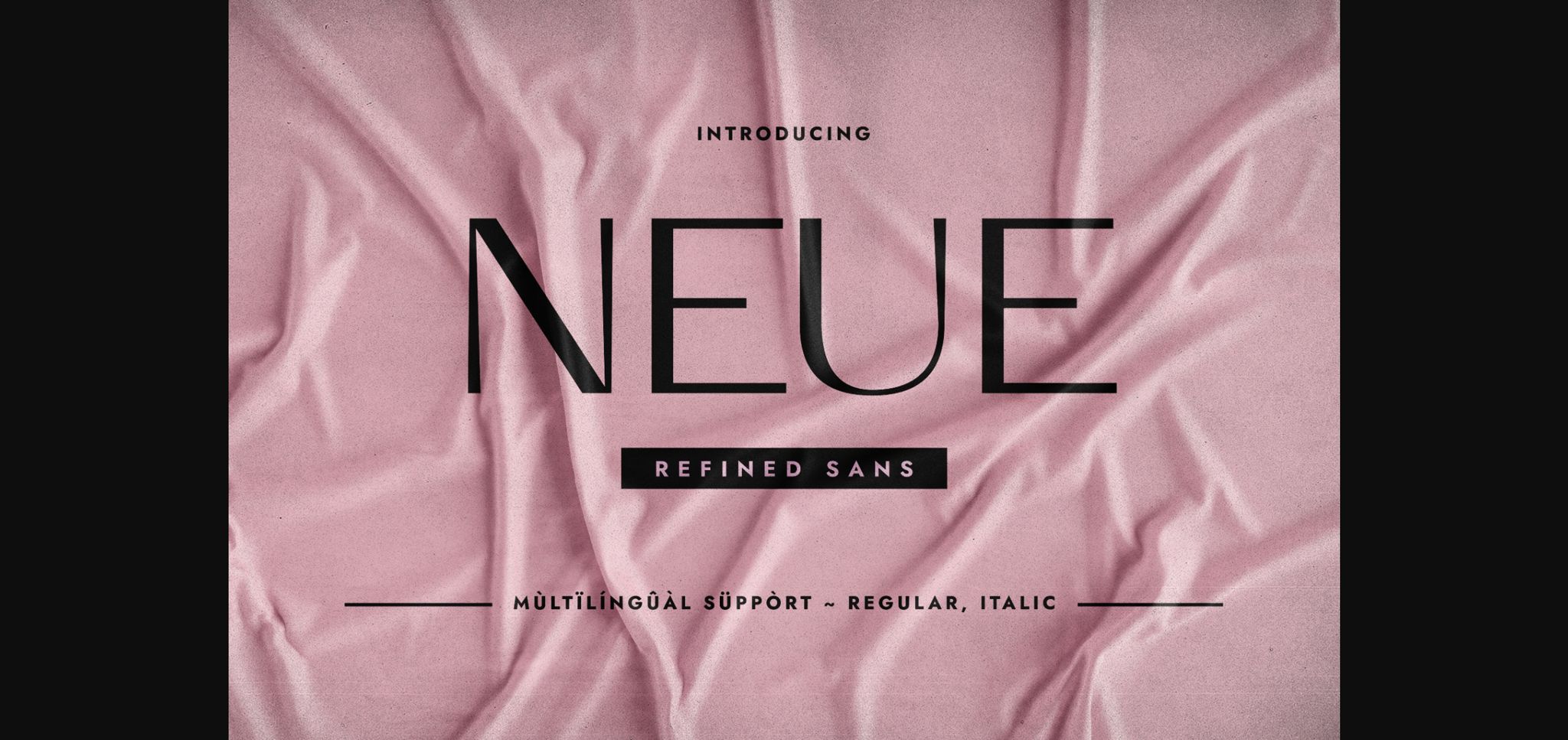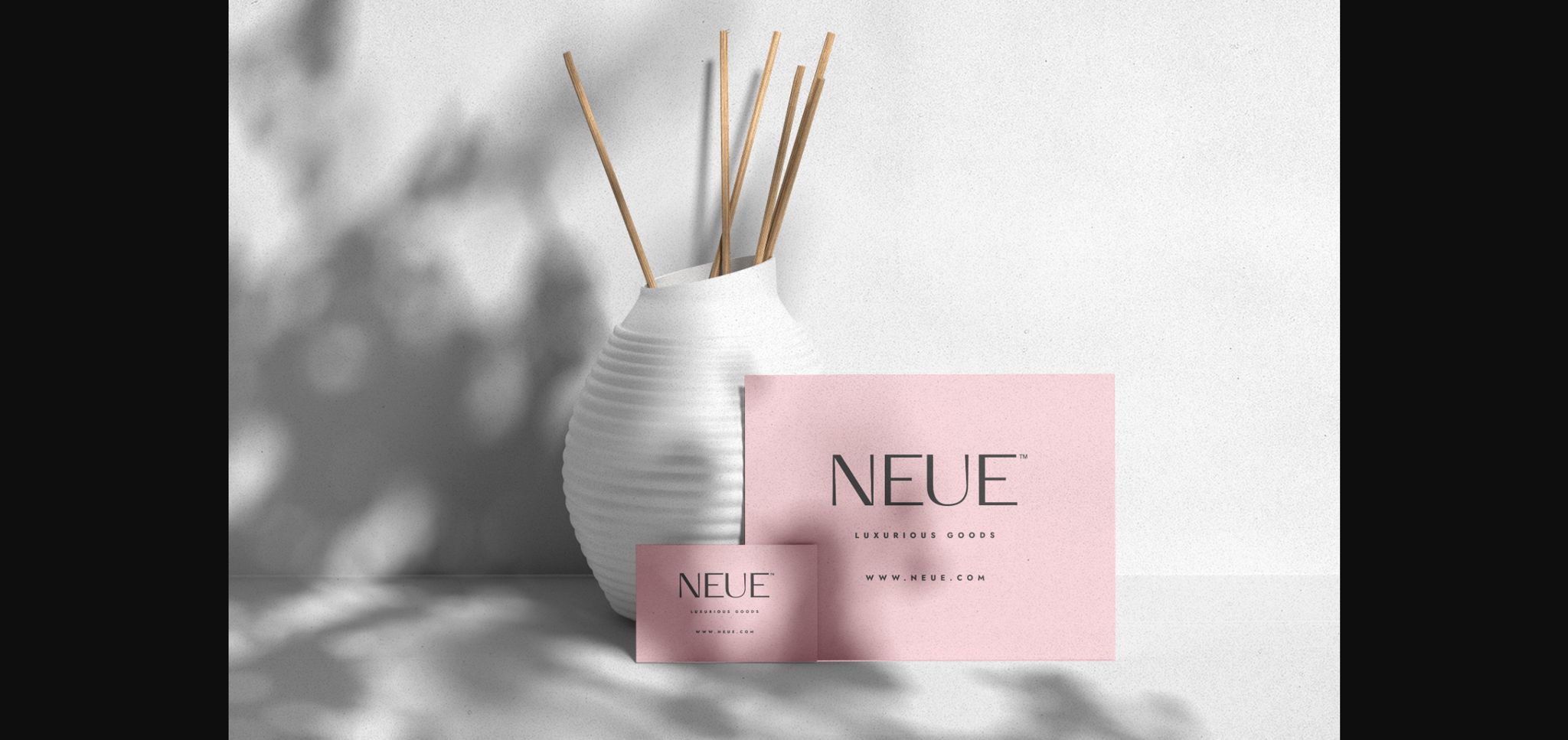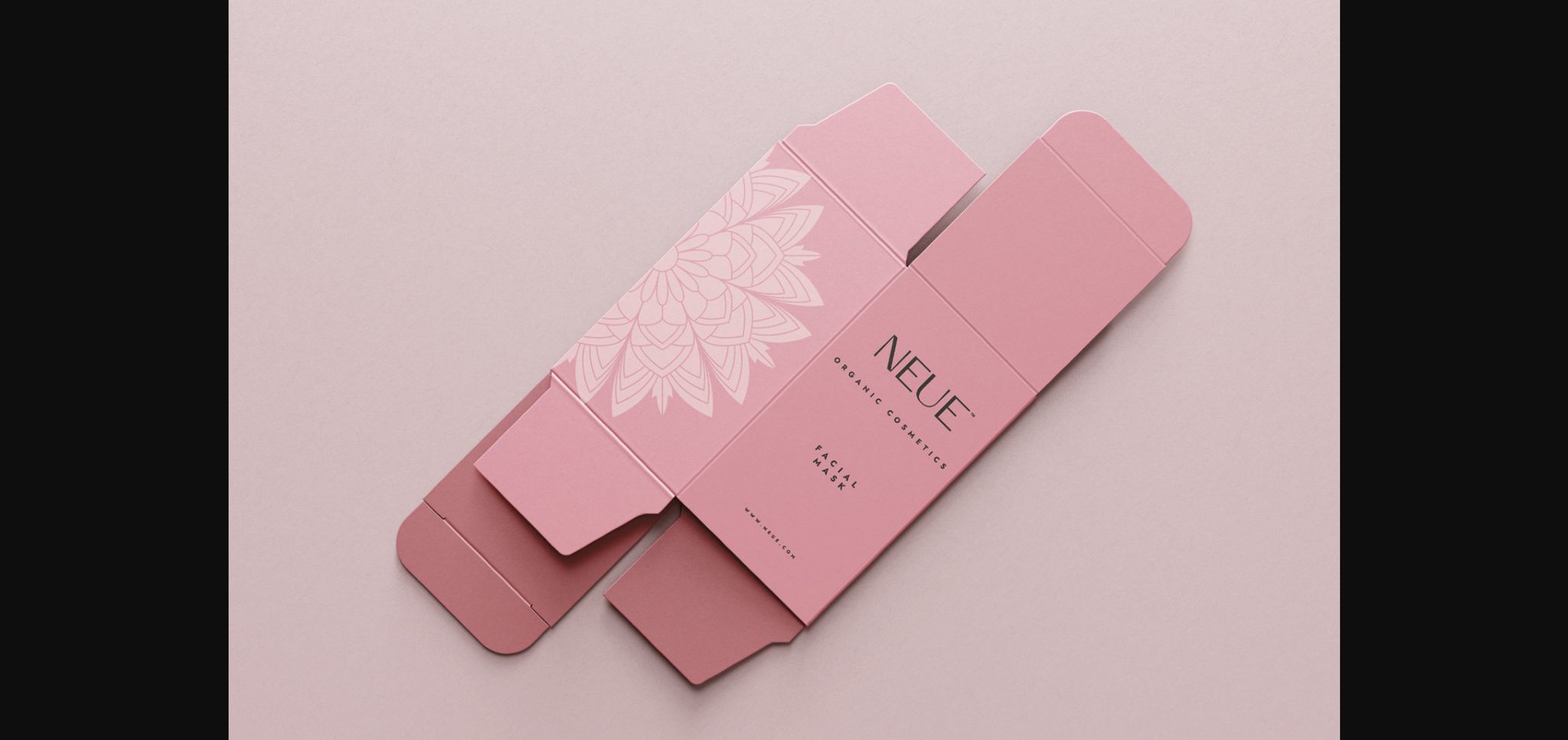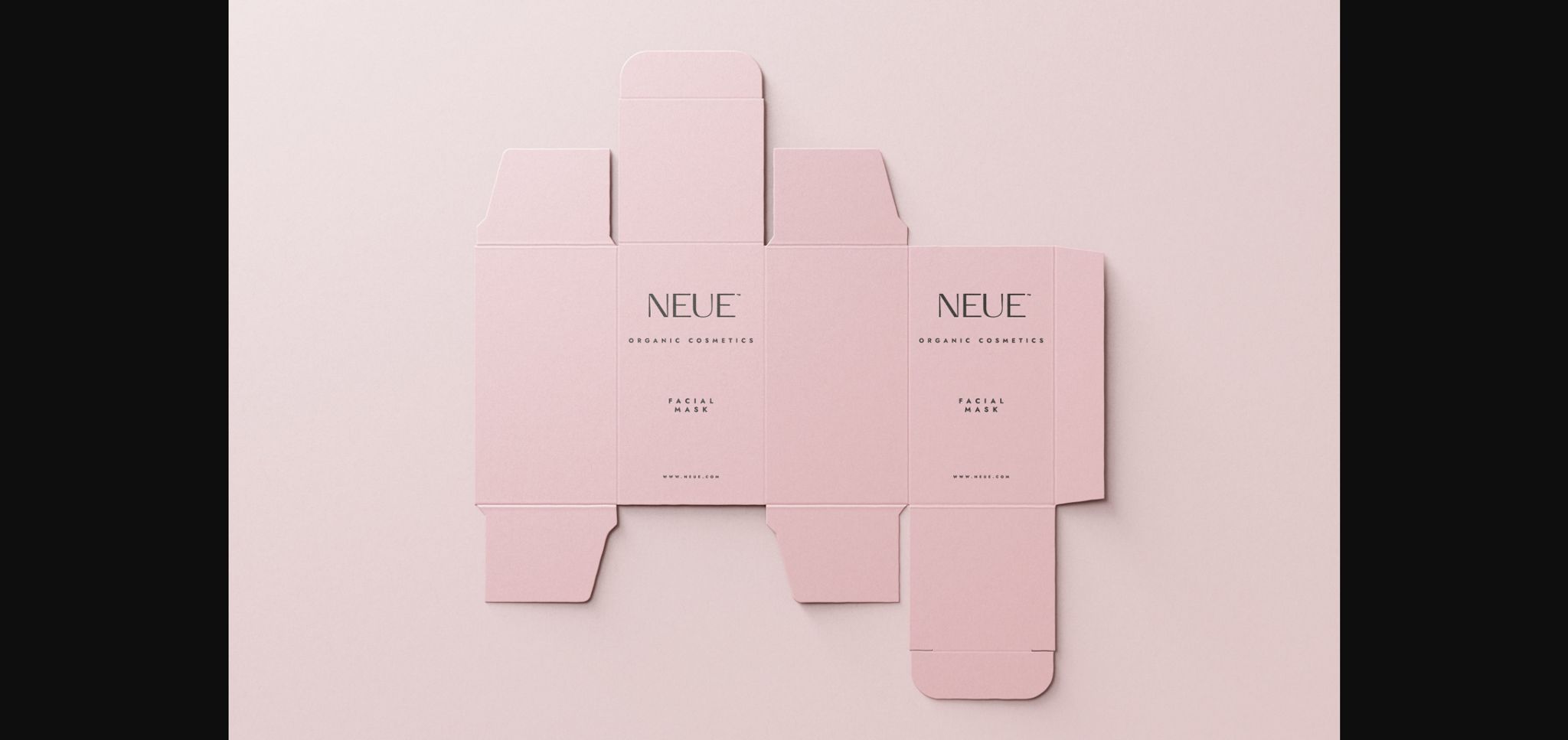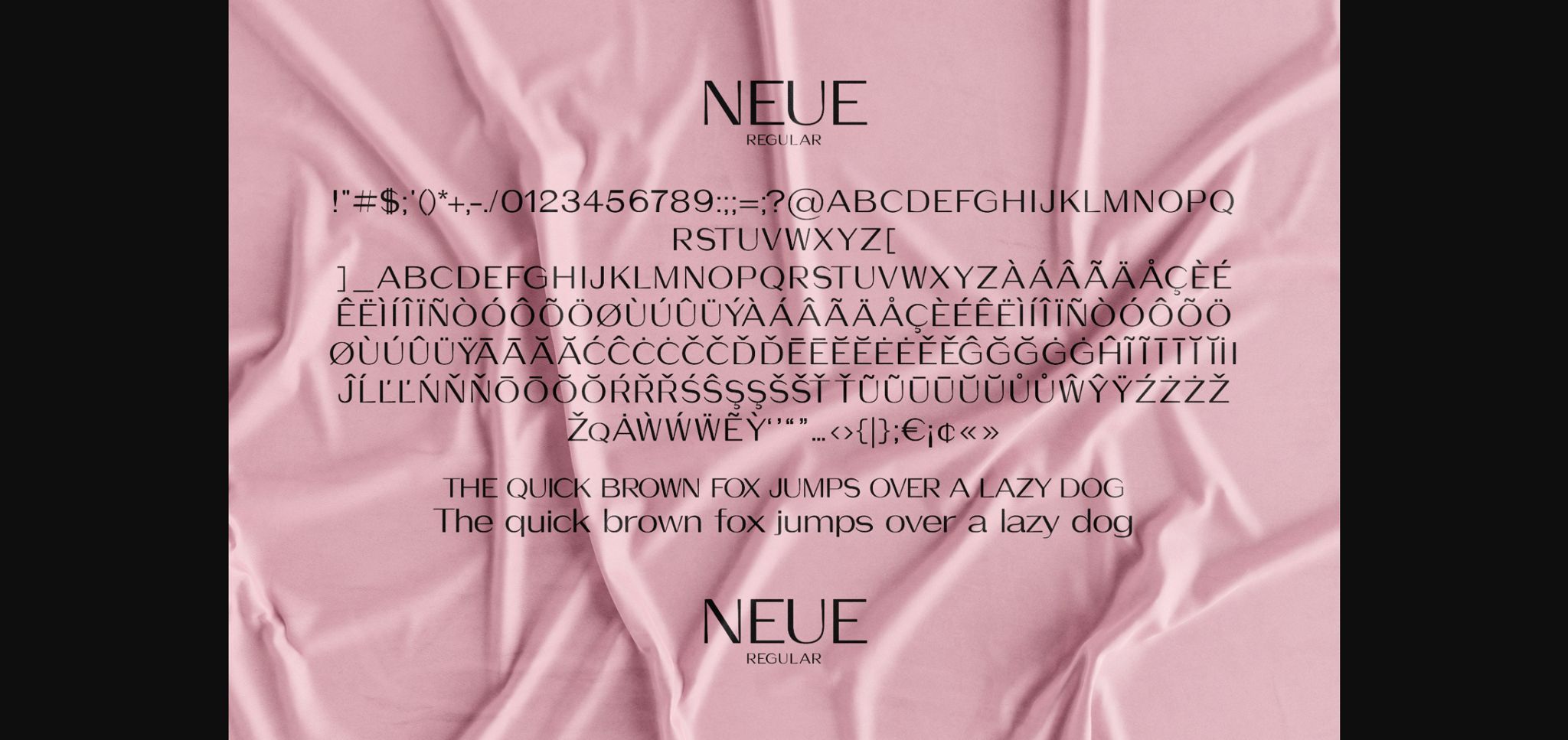
Neue Font
About Neue Font
Neue is a refined, chic, and stylish sans serif typeface. It perfectly suits elegant design projects such as packaging design, cosmetics design, perfume, fashion, jewels, posters, and many more. Use it in your creative idea, and you will notice how it saves you a lot of time!